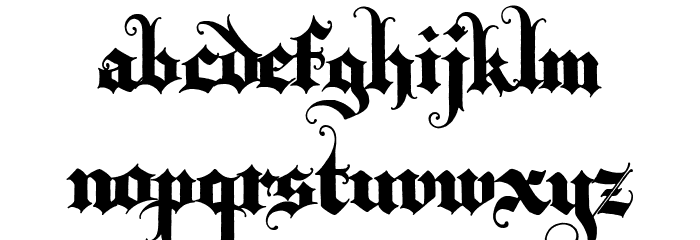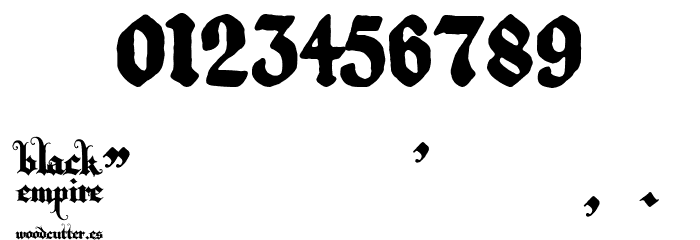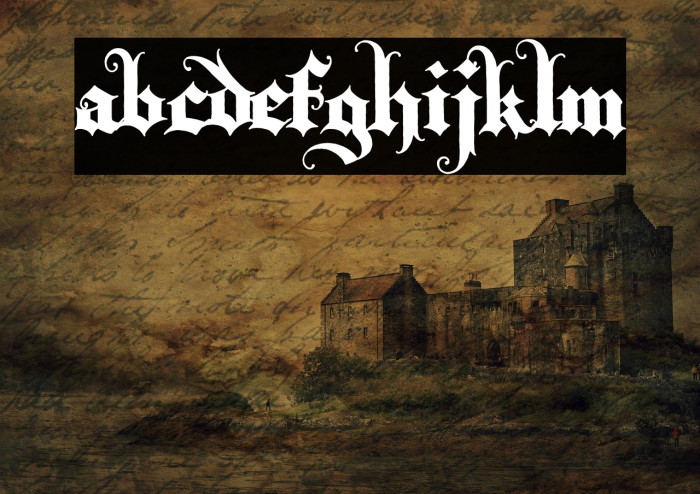
Black Empire Font
This font embodies a traditional blackletter style, characterized by its ornate and intricate letterforms. The characters feature sharp, angular lines with decorative flourishes, reminiscent of medieval script. The uppercase and lowercase letters maintain a consistent style, with bold strokes and pointed serifs that enhance its historical aesthetic. The numerals are equally stylized, integrating seamlessly with the overall design. This font's dramatic appearance makes it suitable for projects that require a touch of elegance and antiquity.
An ornate blackletter font with intricate, medieval-inspired design.
- Proposed Projects: Ideal for historical documents, certificates, book covers, and branding that requires a classic, gothic touch.
- Overall Style: Vintage
- Use Case: Logos, Headlines, Decorative text